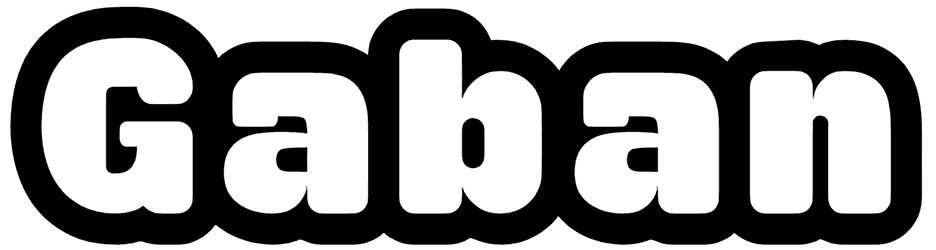
Gaban Font
If you fancy keeping your typography to the point yet lavish, you don’t fail to experience this sans serif font at all! Gaban besides two different styles will add an acceptable variety to your text layout and can be put to use for greeting cards, branding, posters, etc. Hit download to attain this rounded font featuring a cool, friendly, and playful vibe!
Gabán is the outline version of my previous Tabardo font; a decorative continuous outline display font, very thick and rounded. The Kerning I have carefully defined so that all the letters remain together smoothly, providing maximum readability. Useful for titles, banners, posters or graphic design which seeks a fun and friendly.